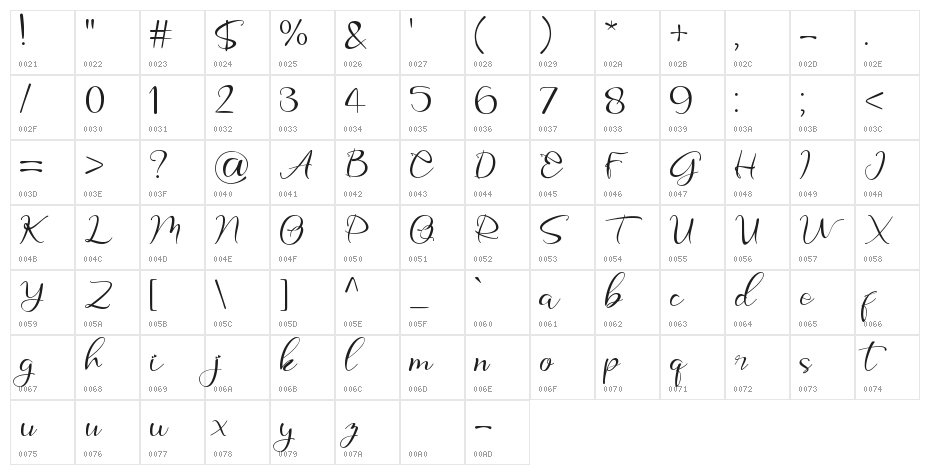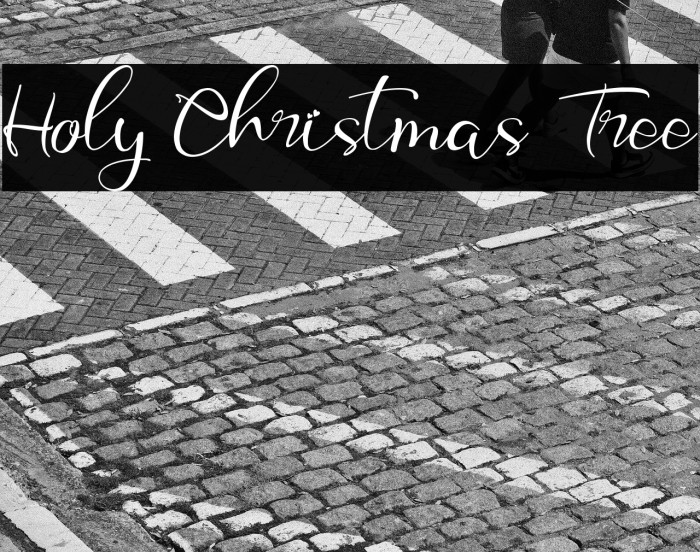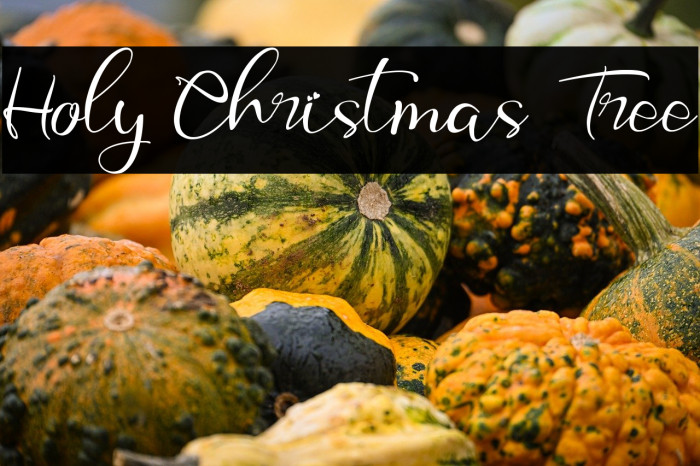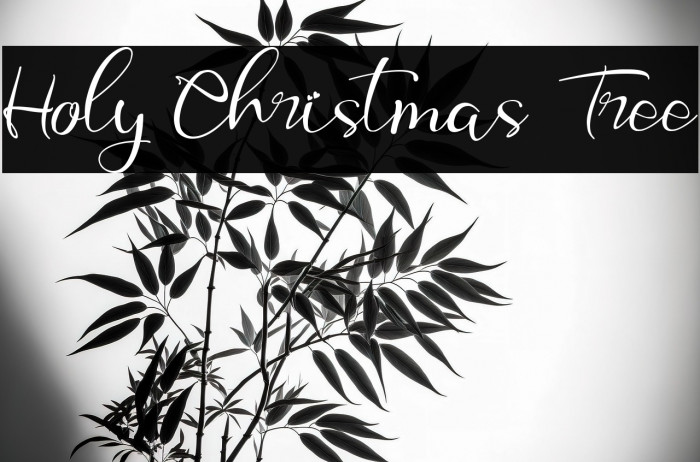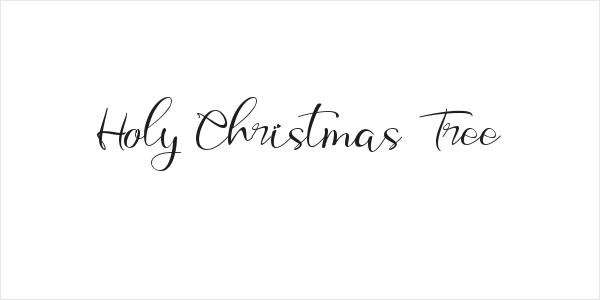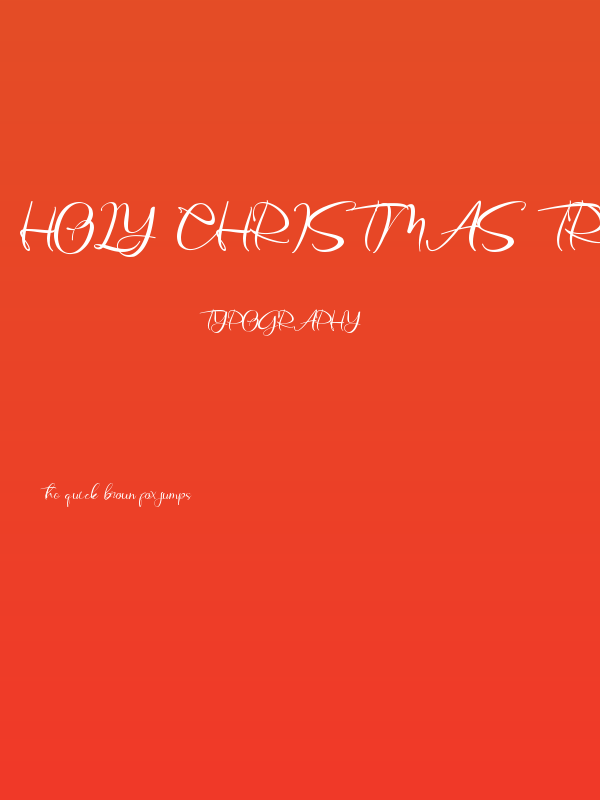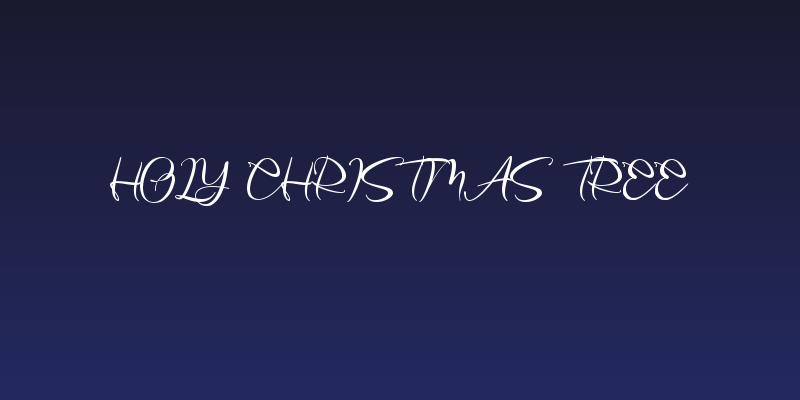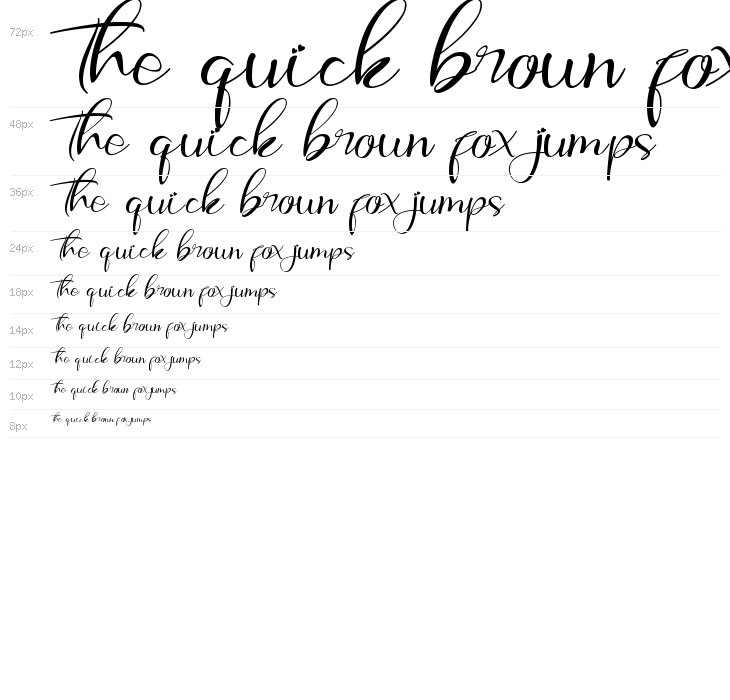
Holy Christmas Tree Font
Holy Christmas Tree Description
This elegant script font features a flowing, cursive style with a modern twist. The uppercase letters are tall and graceful, with sweeping curves and delicate loops that give them a sophisticated appearance. The lowercase letters maintain a consistent style, with smooth connections and a fluid motion that enhances readability. The numerals are stylishly designed, matching the overall aesthetic with their curvaceous forms. Special characters are thoughtfully integrated, maintaining the font's cohesive look. This font exudes a sense of elegance and charm, making it suitable for a variety of creative projects.
| Use Case | Logos, Invitations, Greeting Cards |
| Proposed Projects | Ideal for wedding invitations, greeting cards, branding, and elegant logos. |